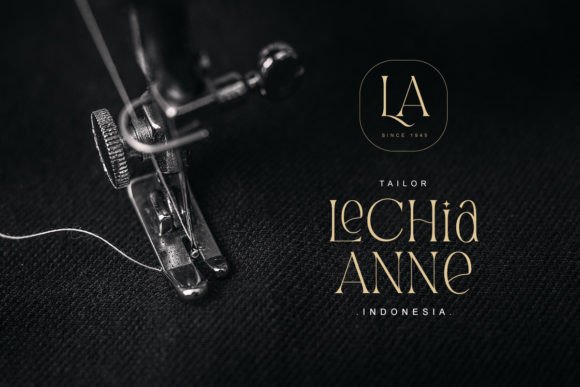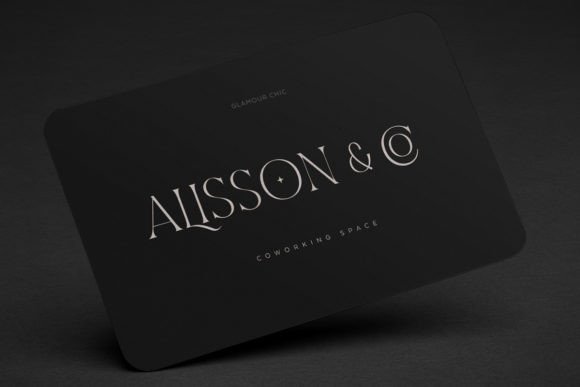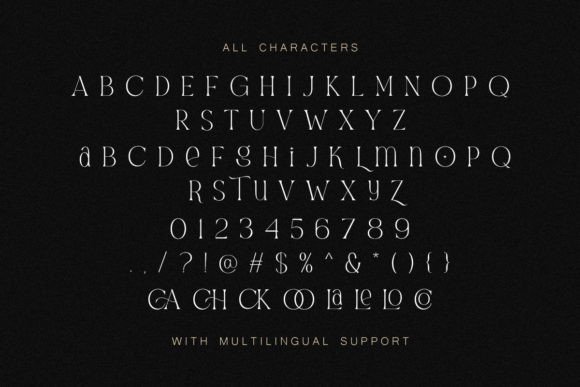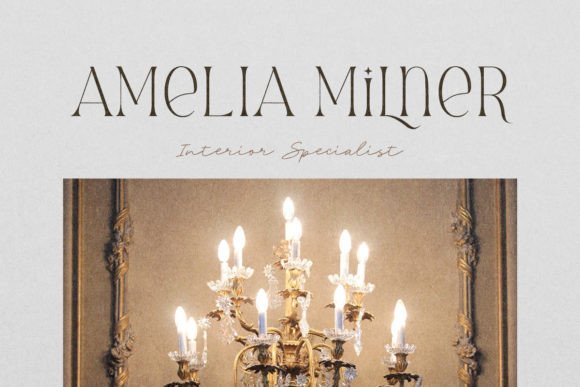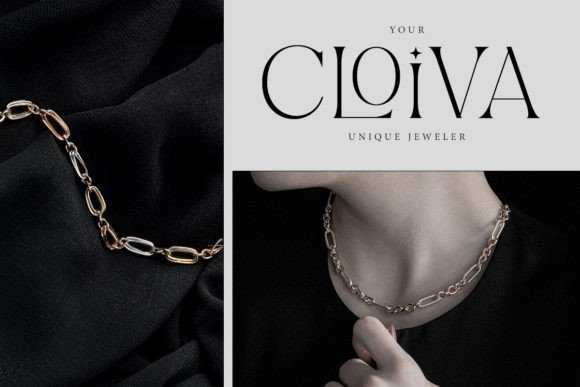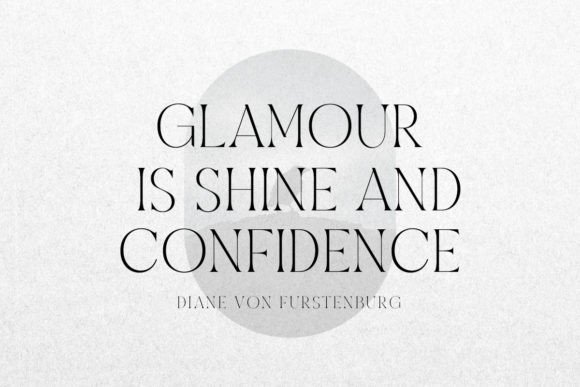
Glamour Chic Font: Elevate Your Designs with Timeless Elegance
In the world of typography, a font can make or break a design. When it comes to creating a lasting impression, the right font can add a touch of sophistication and class to any project. Introducing Glamour Chic, a stylish and chic serif font that embodies the timeless beauty of classic serif styles. With its refined serifs and elegant letterforms, Glamour Chic is perfect for designers and crafters looking to add a touch of luxury to their designs.
The Essence of Glamour Chic
Glamour Chic is more than just a font – it’s an experience. Its refined serifs and elegant letterforms evoke a sense of nostalgia, reminiscent of classic serif styles that have stood the test of time. The font’s sophisticated design makes it perfect for branding, websites, and other contemporary designs where a touch of elegance is desired. Whether you’re designing a logo, brochure, or website, Glamour Chic is sure to bring a level of sophistication and refinement to your project.
Key Features of Glamour Chic
- Refined Serifs: Glamour Chic’s serifs are carefully crafted to add a touch of elegance to your designs. The subtle flair of the serifs creates a sense of movement and fluidity, making the font perfect for designs where a sense of dynamism is desired.
- Elegant Letterforms: Each letterform in Glamour Chic is meticulously designed to exude a sense of sophistication and class. The font’s letterforms are characterized by clean lines, subtle curves, and a sense of refinement that makes them perfect for high-end designs.
- Timeless Beauty: Glamour Chic’s classic serif design ensures that it will remain relevant for years to come. Unlike trendy fonts that may quickly go out of style, Glamour Chic’s timeless beauty ensures that your designs will stand the test of time.
- Versatility: Glamour Chic is a versatile font that can be used in a variety of design applications, from branding and advertising to websites and packaging.
Why Choose Glamour Chic?
With so many fonts available, why choose Glamour Chic? Here are just a few reasons why designers and crafters are falling in love with this stunning serif font:
- Adds Sophistication: Glamour Chic adds a touch of sophistication and class to any design, making it perfect for high-end brands and luxury products.
- Enhances Readability: The font’s clear and elegant letterforms make it easy to read, even in small sizes.
- Unique and Memorable: Glamour Chic’s distinctive design ensures that your designs will stand out from the crowd and leave a lasting impression.
Design Applications for Glamour Chic
Glamour Chic is a versatile font that can be used in a variety of design applications, including:
- Branding: Use Glamour Chic to create a sophisticated brand identity that exudes luxury and elegance.
- Websites: Add a touch of refinement to your website with Glamour Chic, perfect for high-end brands and luxury products.
- Advertising: Use Glamour Chic in your advertising materials, such as brochures, flyers, and billboards, to add a level of sophistication and elegance.
- Packaging: Glamour Chic is perfect for packaging designs where a touch of luxury and sophistication is desired.
In conclusion, Glamour Chic is a stylish and chic serif font that adds a touch of sophistication and class to any design. With its refined serifs, elegant letterforms, and timeless beauty, Glamour Chic is perfect for designers and crafters looking to create high-end designs that exude luxury and elegance. Whether you’re designing a brand identity, website, or advertising materials, Glamour Chic is sure to bring a level of refinement and sophistication to your project.